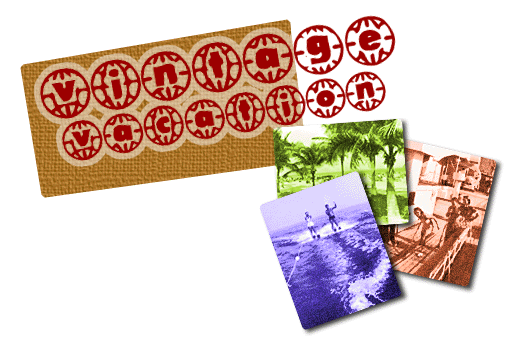
HomeFont BrosRetro (1936-1965)Vintage Vacation Retro (1936-1965)Special Effect Vintage Vacation FacebookXPinterestWhatsApp 1 of 1 About Vintage Vacation I made this font because I needed something that kind of had a 1950\’s Summer Safari theme. I may not have captured it too well, but it served its purpose for me. Now you can have it.  DOWNLOAD ON FONT BROSThis font is sold and delivered by Font Bros. Font Canyon may earn a commission if you buy through this link. People also explored Romanttica – Modern Script Brush Font District Font Lenny Faces Font Justine Font Valentines Romantic Font Coatesville Font Zebardon Font The Wedding Font Jingle Christmas Font 275 0 TagsVintage Vacation Font Previous articleRoadwayNext articleRange LEAVE A REPLY Cancel reply Comment: Please enter your comment! Name:* Please enter your name here Email:* You have entered an incorrect email address! Please enter your email address here Website: Save my name, email, and website in this browser for the next time I comment. Personal Use Free Eric”s Personal Use Free Read more about this font The Most Beautiful Gift Personal Use Free Read more about this font Peristiwa Font Personal Use Free Read more about this font Nickainley Personal Use Free Read more about this font BLOG Fonts That Capture the Spirit of New York City New York City is more than just a place—it’s an experience, a rhythm, a visual language... To increase your work productivity, choose the most readable fonts. Transform Your Website: Elevate Your Typography with 7 Best Web Font Generators Where to Buy American Fonts Online in 2024